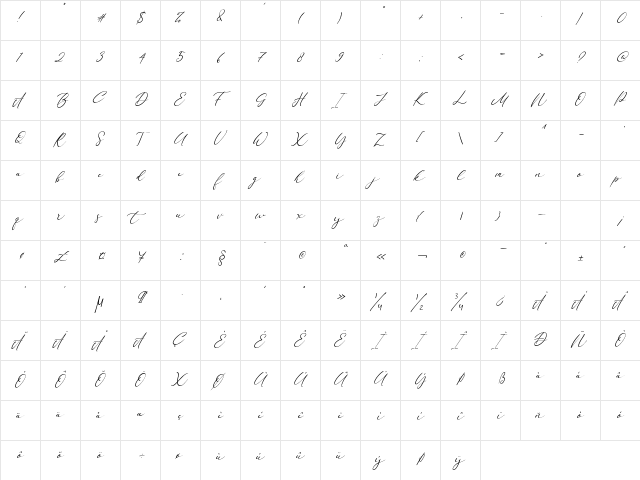
California Signature Italic Regular
Design Context for California Signature Italic Typeface
California Signature Italic is a composed and adaptable typeface that performs quietly and consistently across a wide range of design contexts. The slanted form adds forward momentum and visual energy.